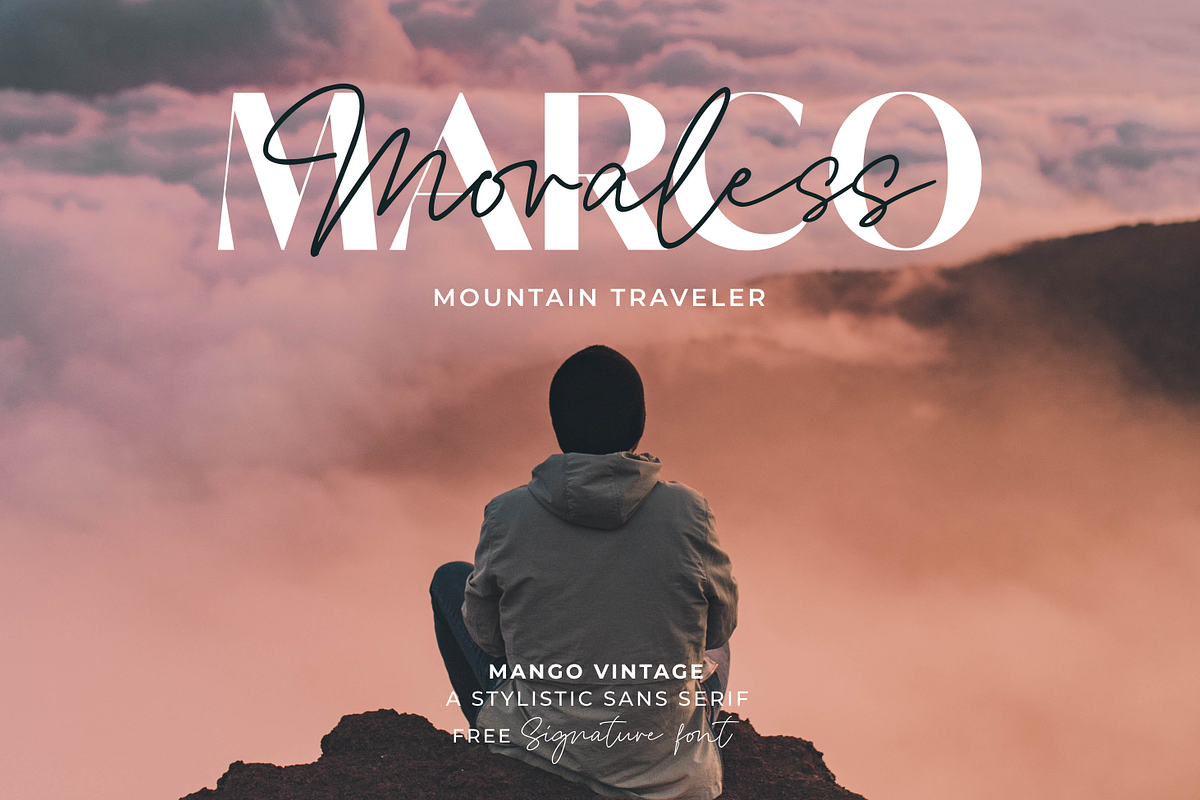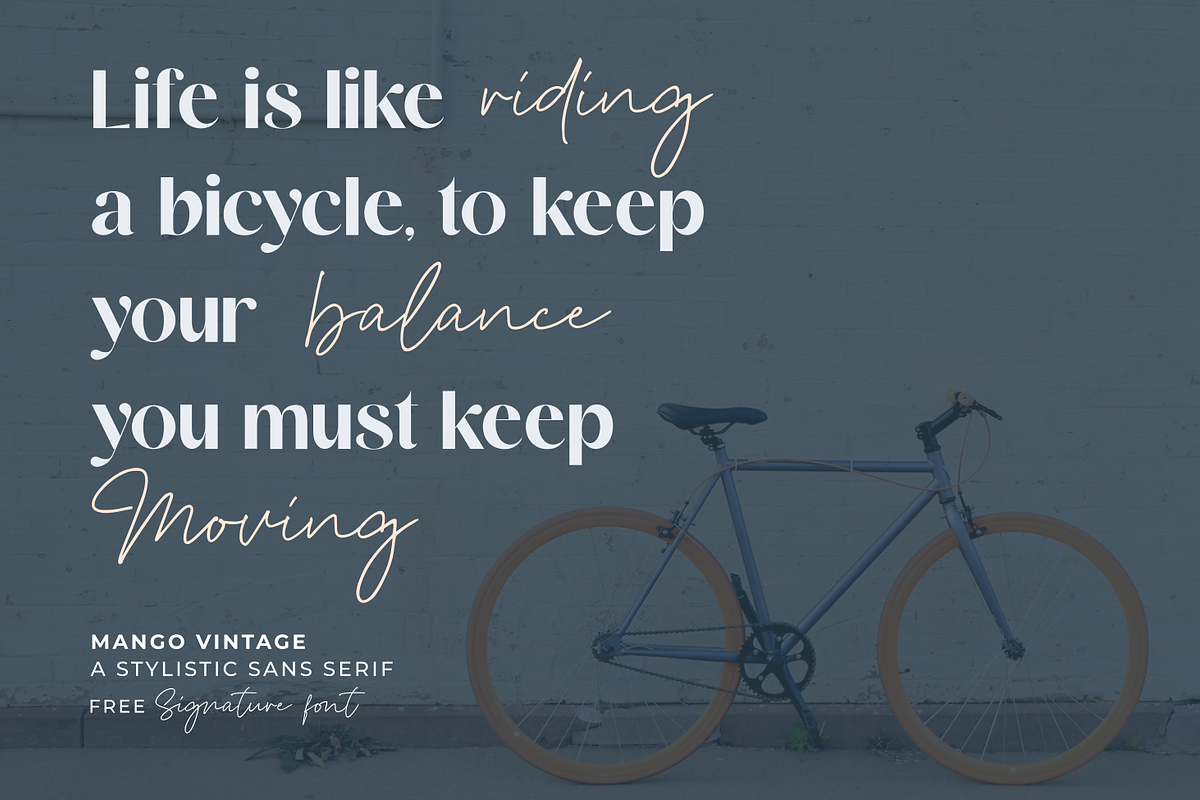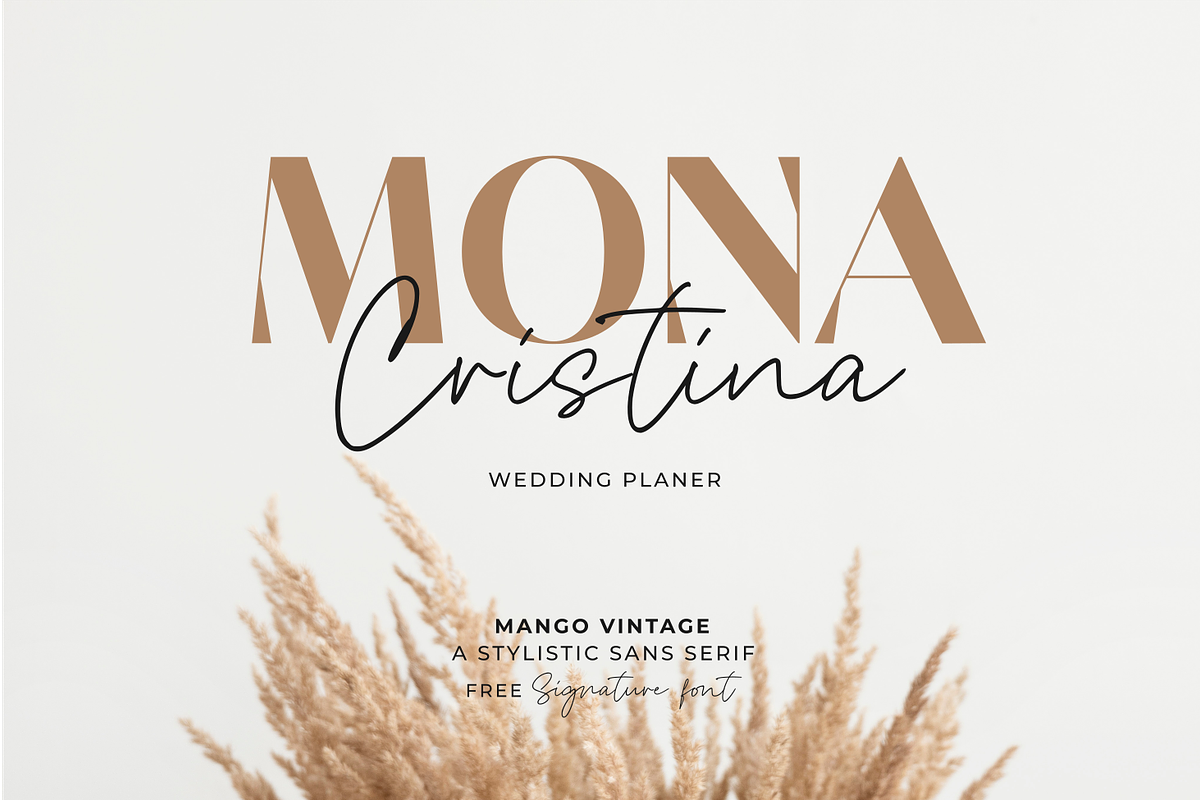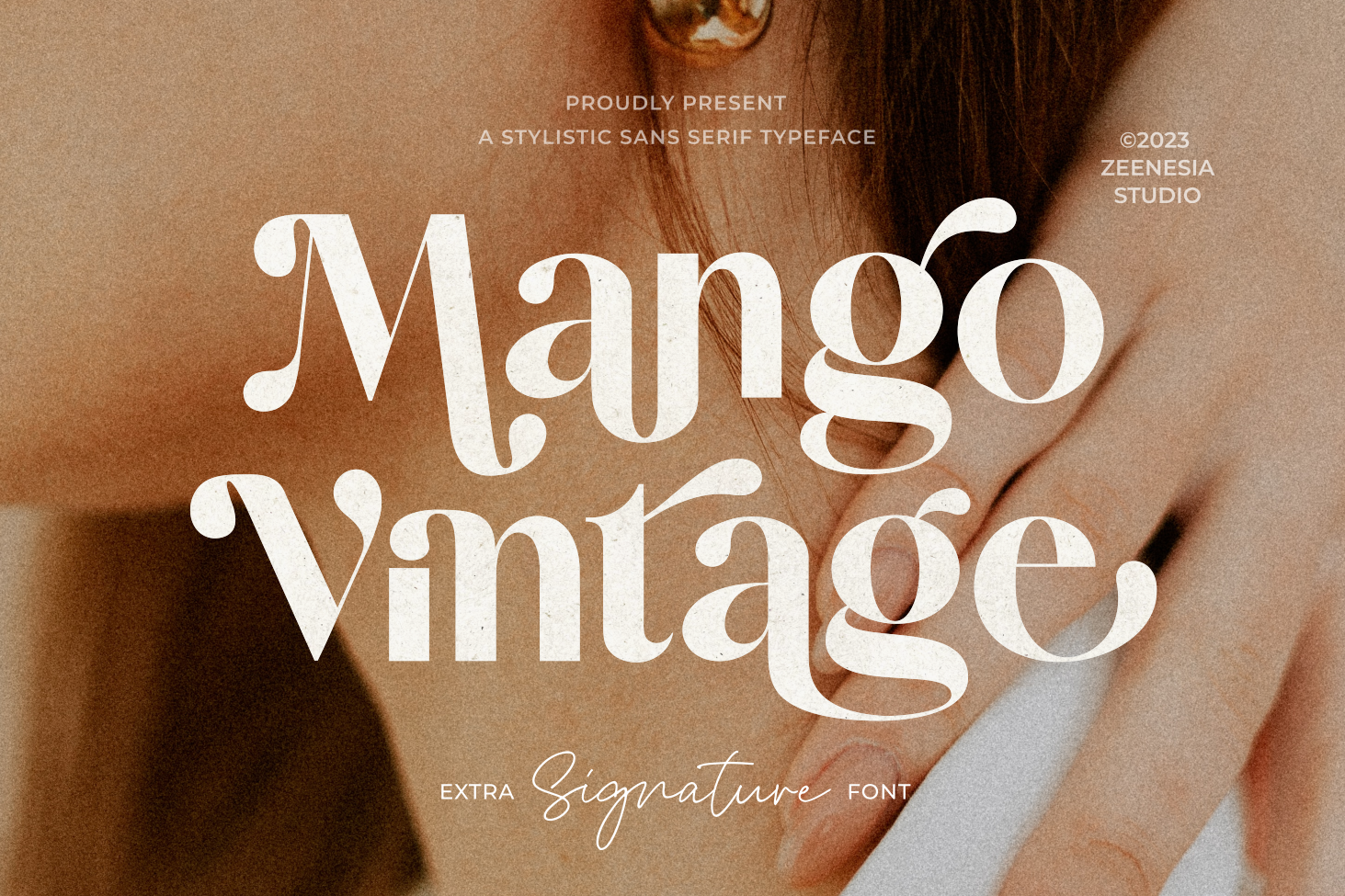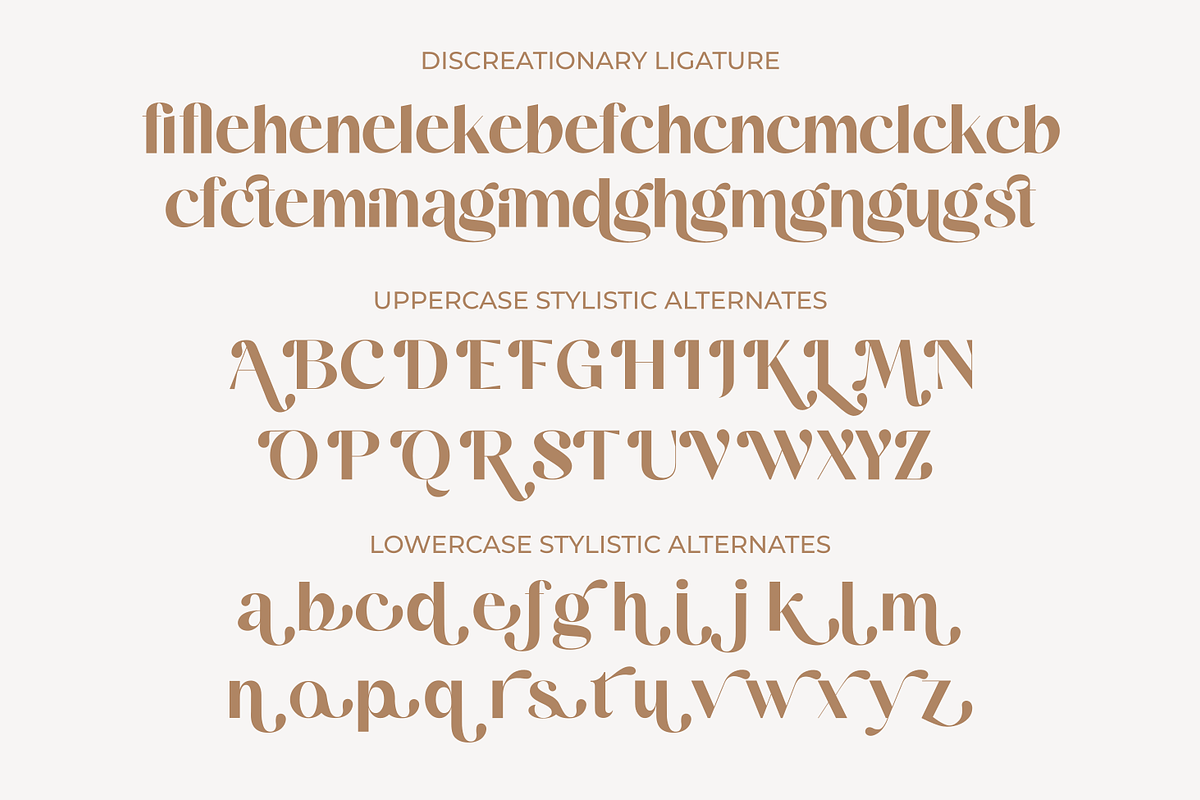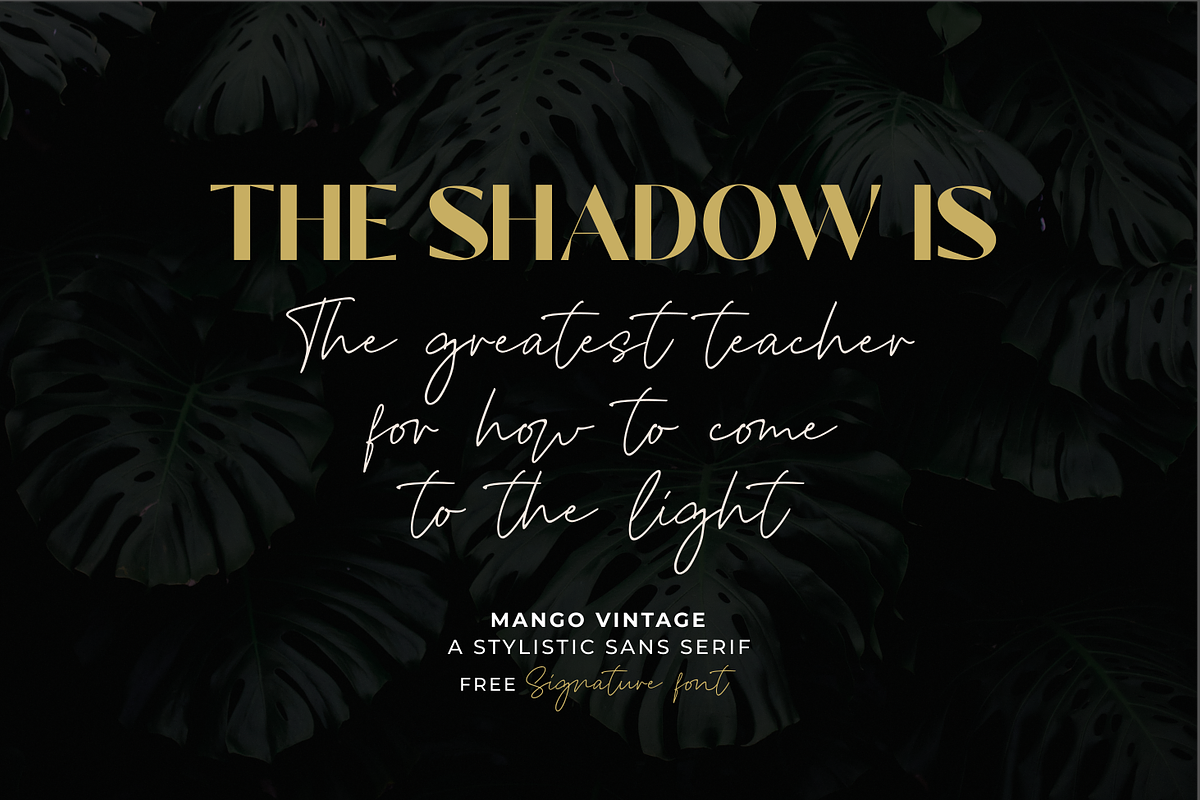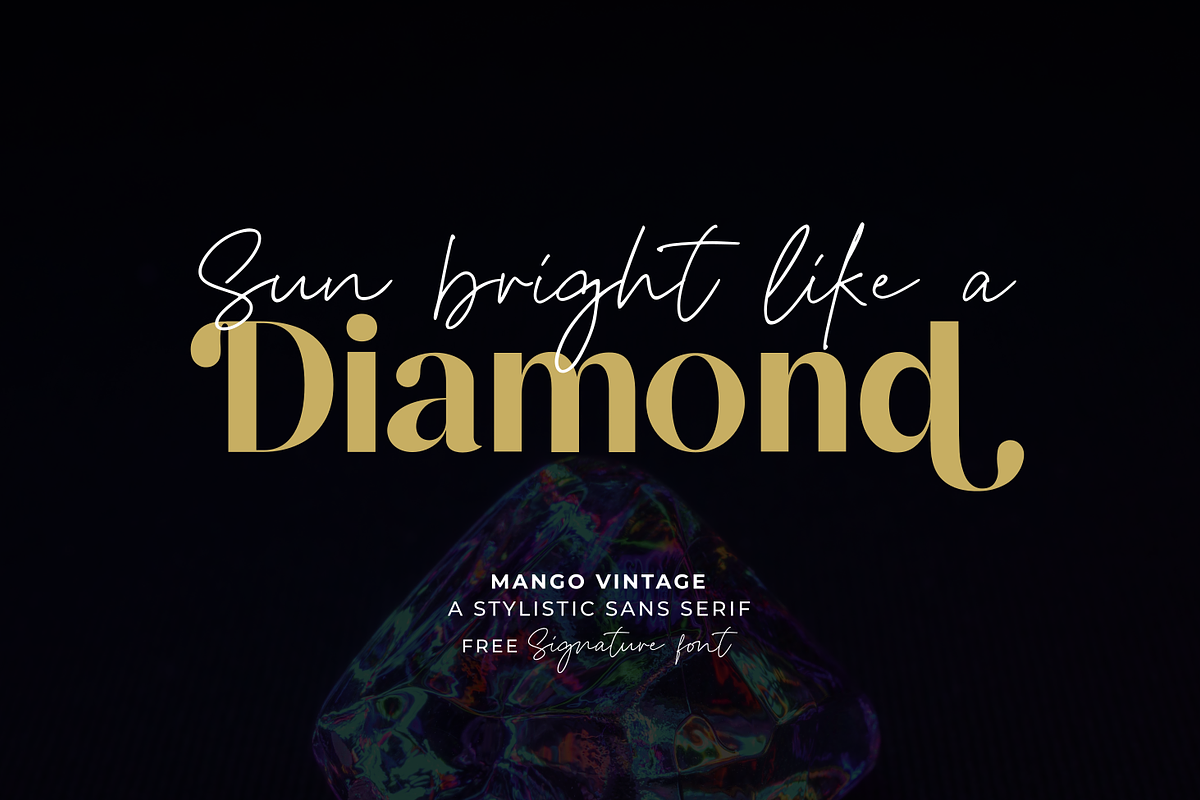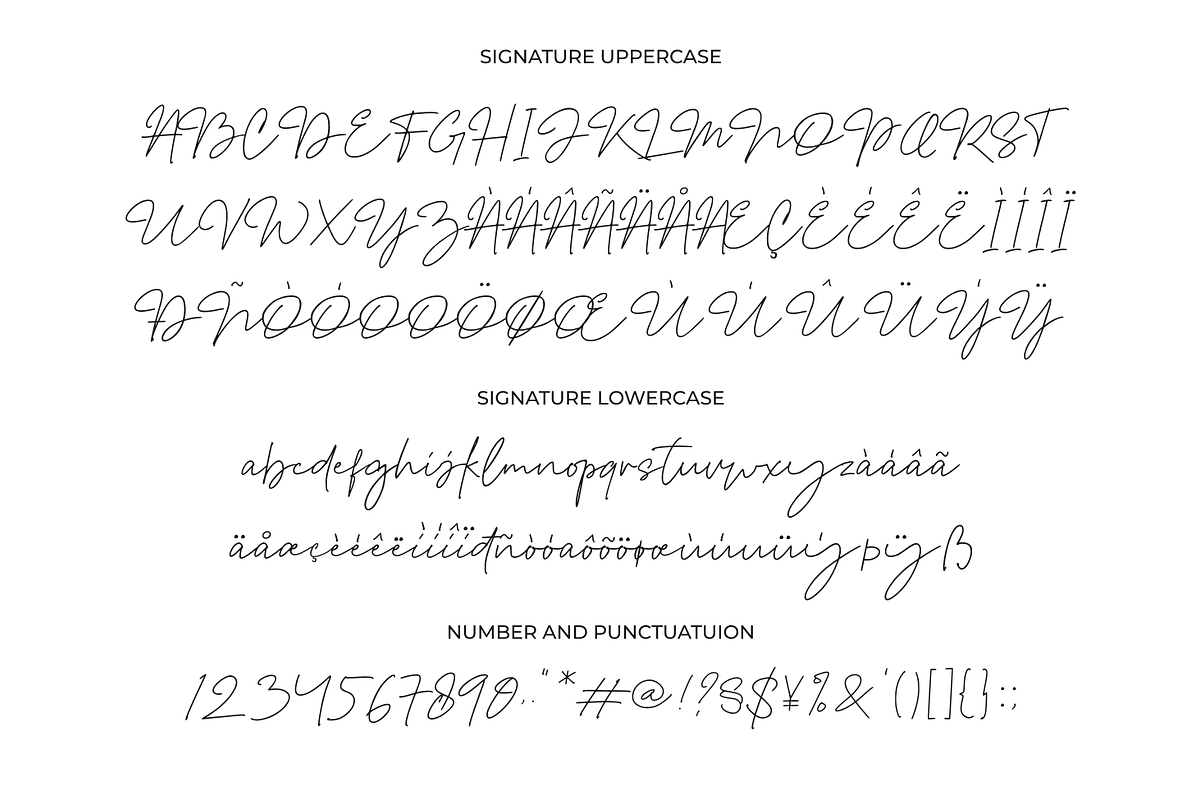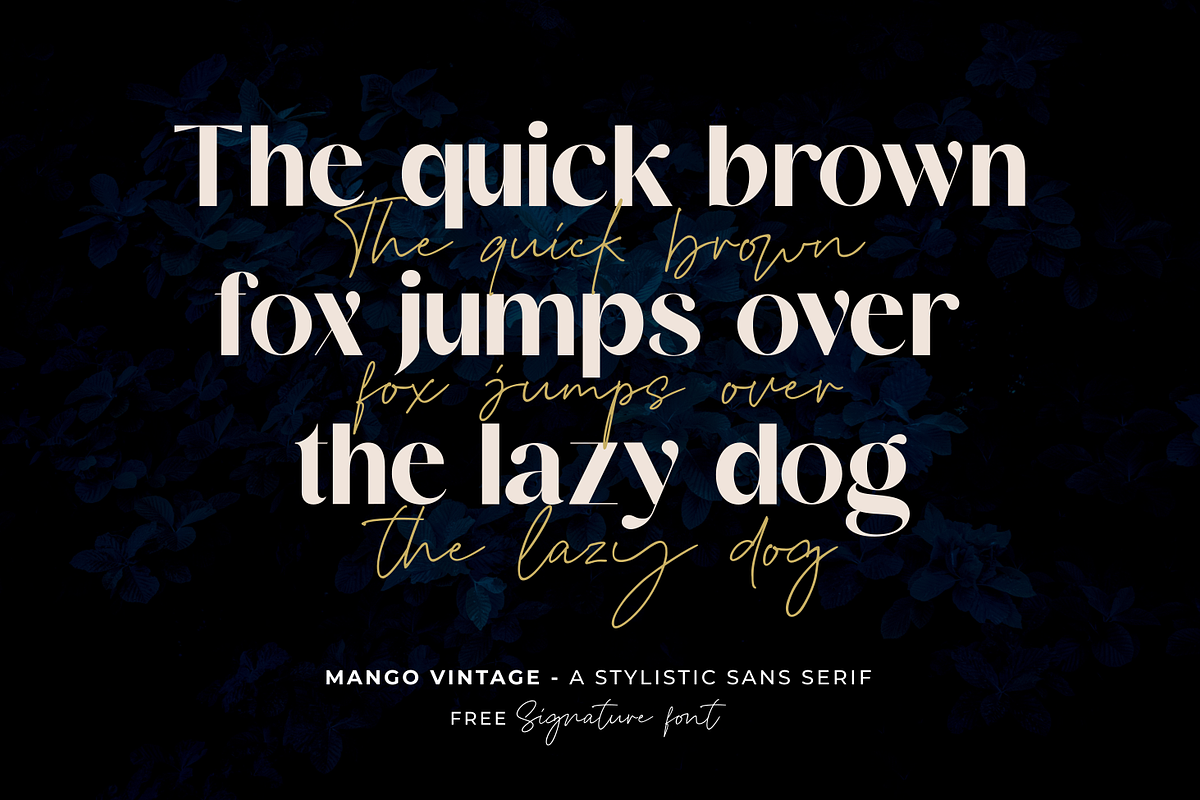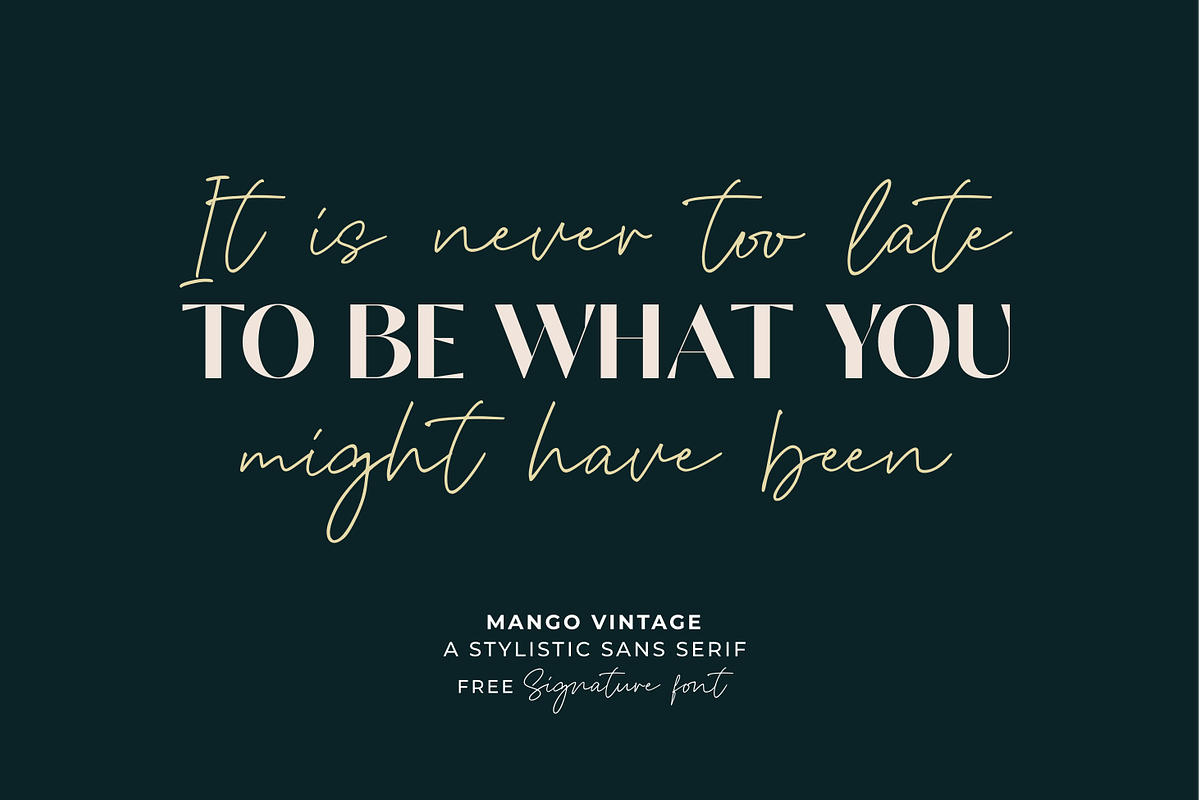
Mango Vintage Free Signature Font
Introducing Vintage Mango is a modern and elegant sans serif font. Vintage Mango is well-suited for advertising, branding, logotypes, packaging, titles, headlines and editorial design. I created more much alternates variant and much natural ligatures to make this font very classy and look so beauty. Vintage Mango was built with open type features make your project will be perfect.